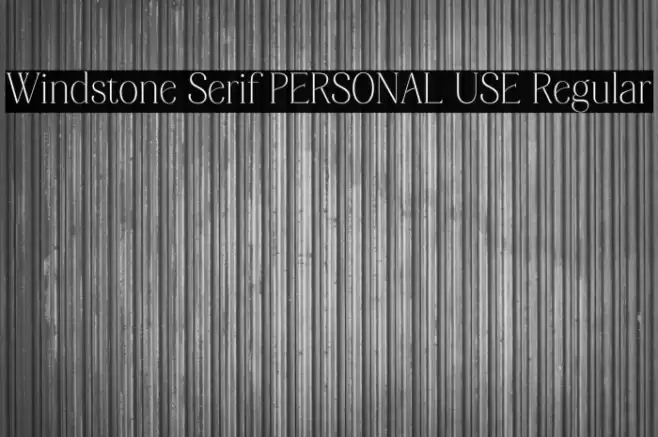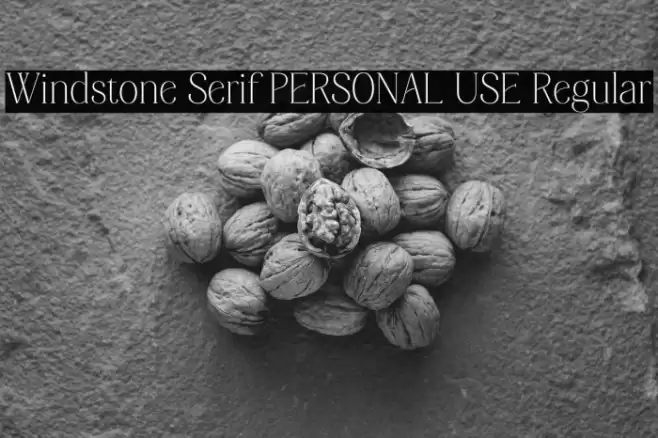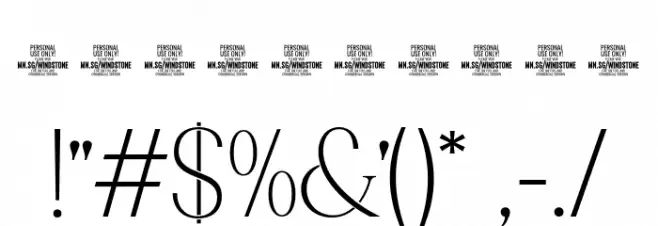
Windstone Serif PERSONAL USE Regular Font
Windstone Serif PERSONAL USE Regular Description
This font features a sophisticated serif style with elegant, elongated strokes and a refined appearance. The uppercase letters are tall and slender, giving a sense of grace and formality. The lowercase letters maintain a consistent style with a slightly more rounded and approachable feel. The numerals are clear and well-defined, ensuring readability. Special characters are designed with the same attention to detail, making them suitable for various uses. The overall design is both classic and modern, making it versatile for different design needs.
A refined serif font with elegant, elongated strokes and a classic yet modern appeal from Uncategorized fonts.
- Proposed Projects: Ideal for use in editorial design, luxury branding, invitations, and high-end product packaging.
- Overall Style: Classic